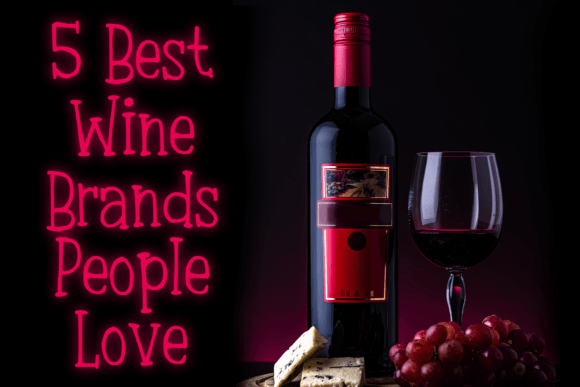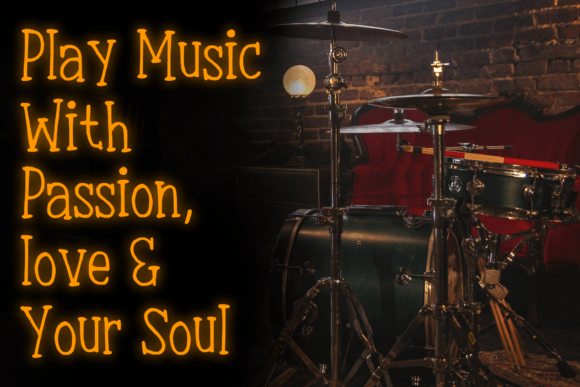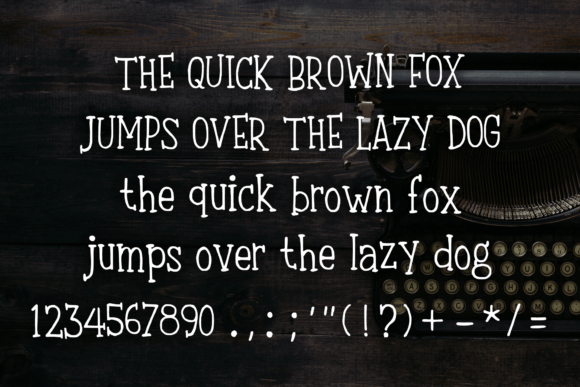
Bouncy Typewriter Font
Bouncy Typewriter is a fun bouncy handwritten serif font. It will elevate a wide range of design projects to the highest level. You can use this font for many design ideas such as stickers, t-shirt designs, amazing logo designs, magazine or book covers, comics, cartoon drawings, and many more. This font will add a super cool touch to your designs!